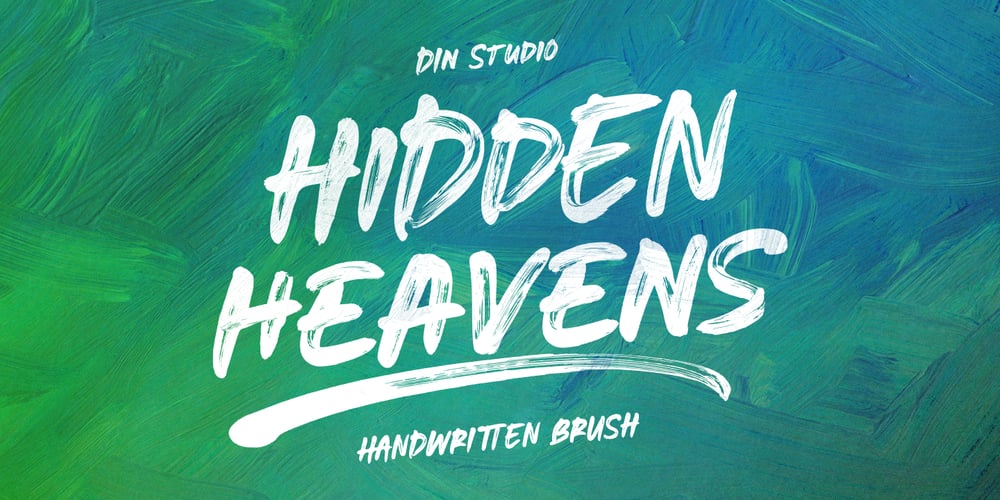
Hidden Heavens Font Family was designed by Donis Miftahudin and published by Din Studio. Hidden Heavens contains 2 styles and family package options. Introducing Hidden Heaven, a refined script font crafted in a sophisticated brush style. With its small font size and tight spacing, Hidden Heaven delivers an elegant, clean, and highly professional look. Each letter is meticulously designed to ensure perfect consistency, creating a polished and effortless flow that mimics the charm of a handwritten. In addition, enjoy the features here.Features: Ligatures Swashes Multilingual Supports PUA Encoded Numerals and Punctuations Hidden Heaven fits in logos, posters, business cards, branding materials, high-end packaging, print media, editorial layouts, and many more designs. Find out more ways to use this font by taking a look at the font preview.Thanks for purchasing our fonts. Hopefully, you have a great time using our font. Feel free to contact us anytime for further information or when you have trouble with the font. Thanks a lot and happy designing.